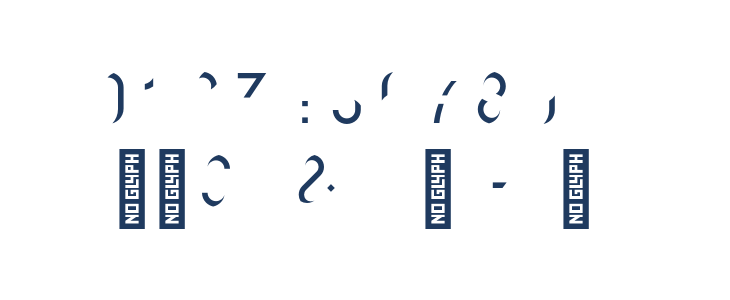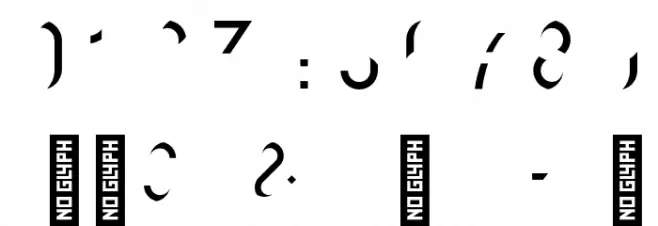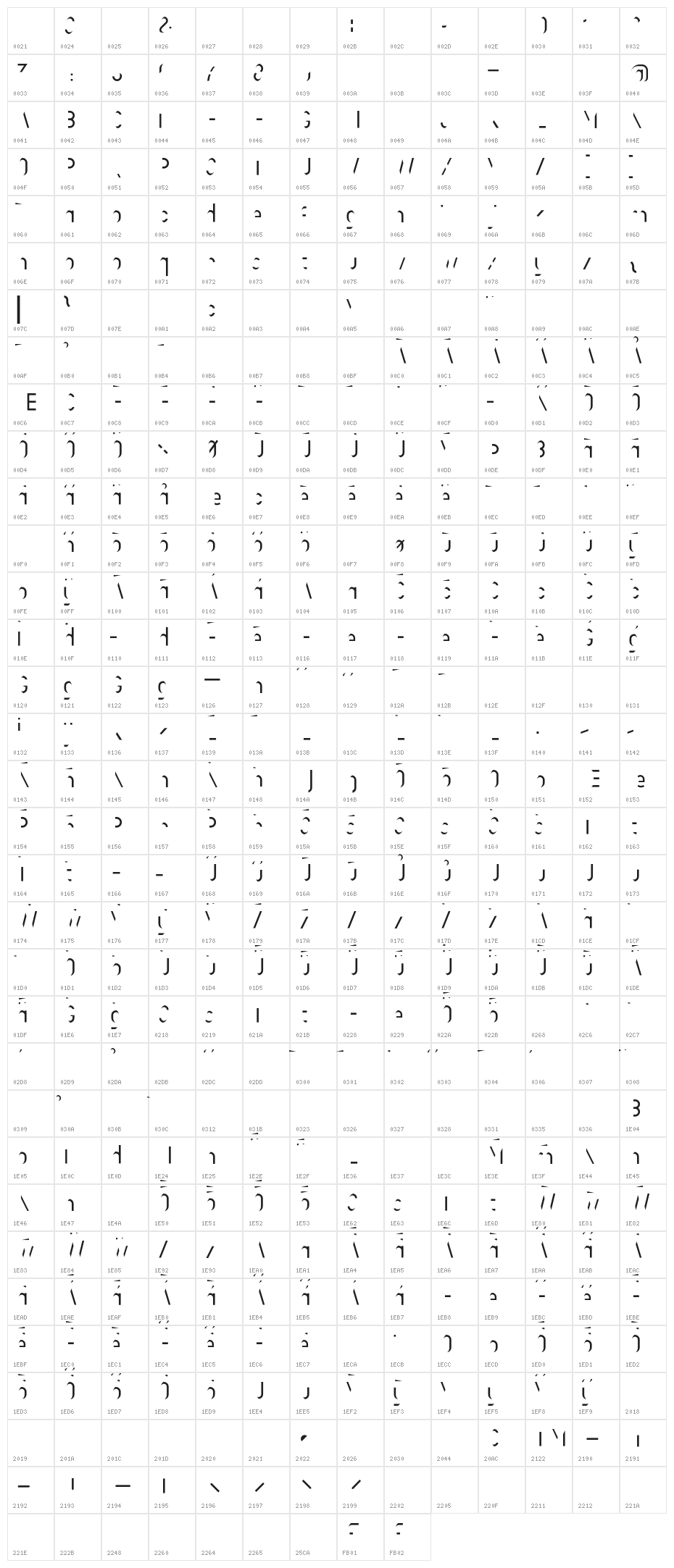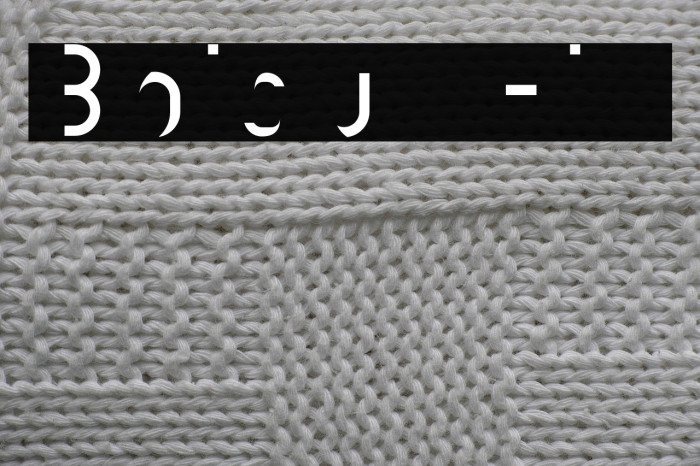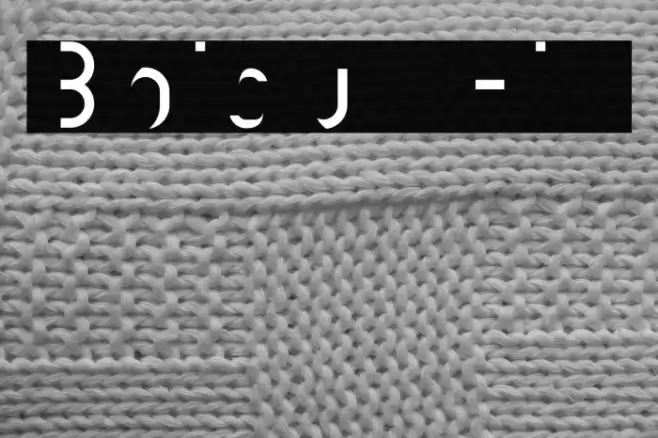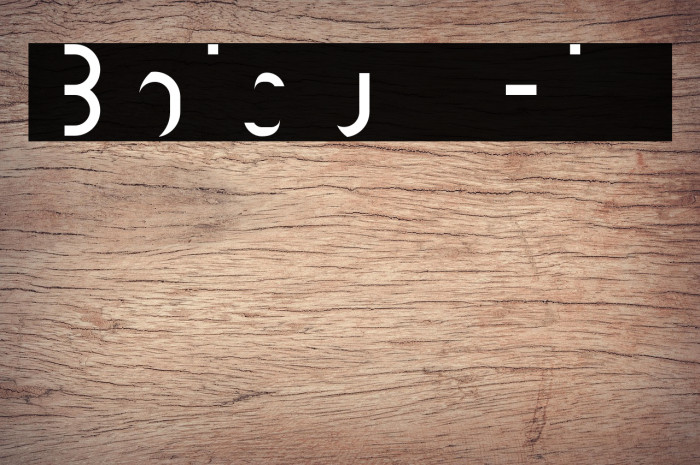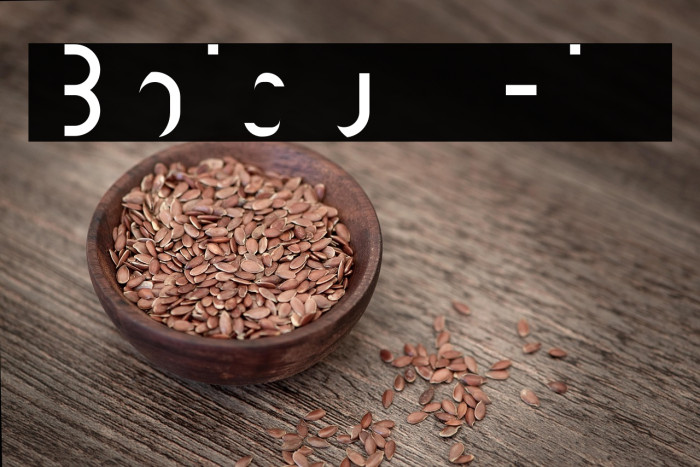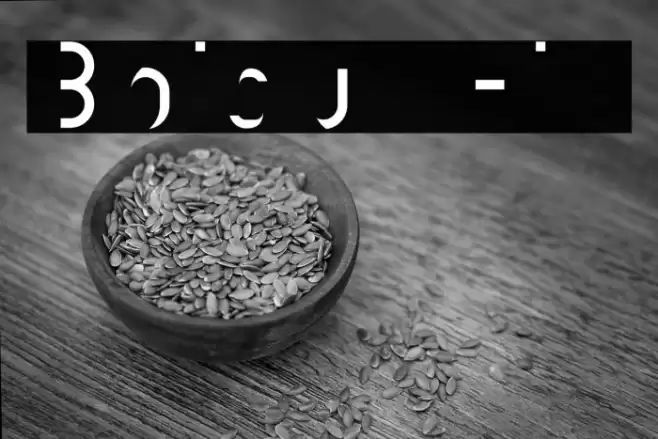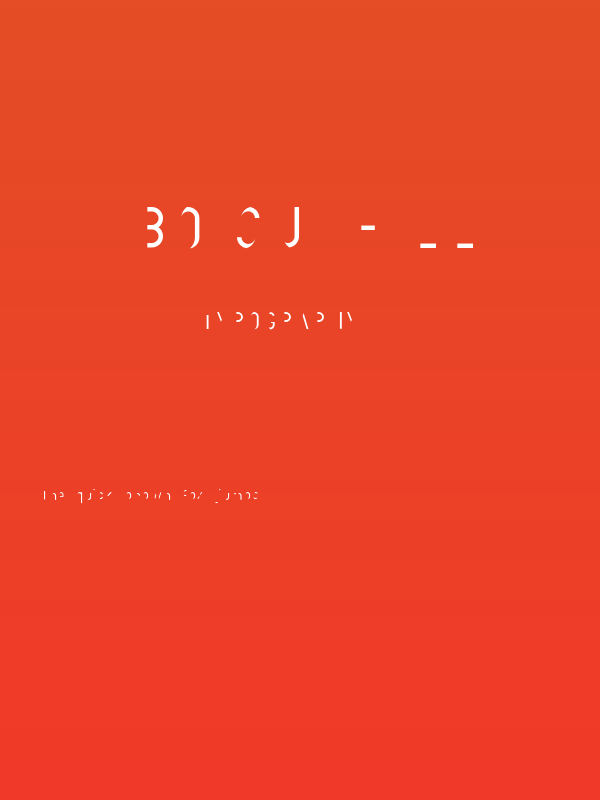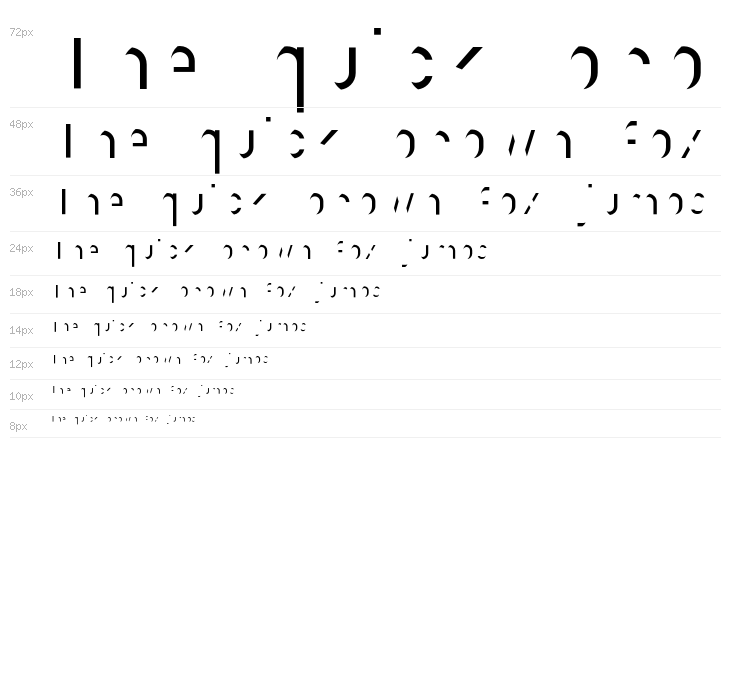
Boisu Fill Font
Boisu Fill Description
This font features a unique and modern design with a minimalist approach. The characters are constructed with a combination of straight lines and subtle curves, creating a futuristic and sleek appearance. The uppercase and lowercase letters maintain a consistent style, with a focus on geometric shapes. The numbers and special characters follow the same design principles, ensuring uniformity across the entire set. The font's clean and uncluttered look makes it suitable for contemporary design projects.
| Proposed Projects | Ideal for branding, tech-related designs, modern posters, and digital interfaces. |